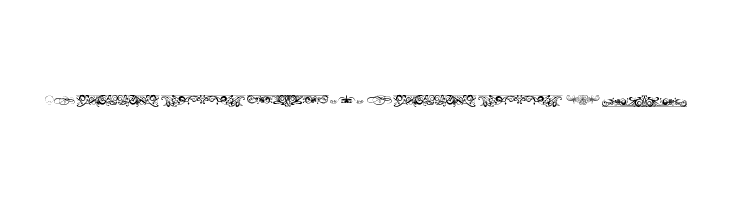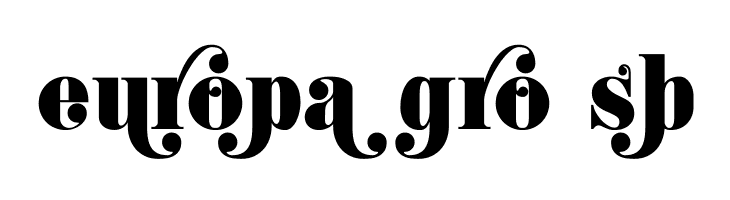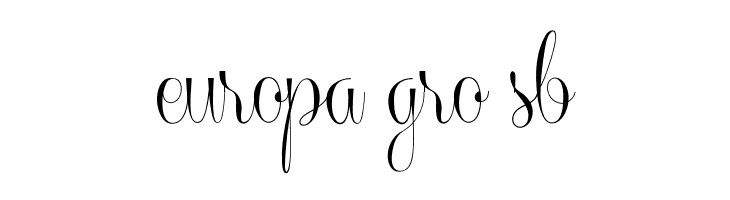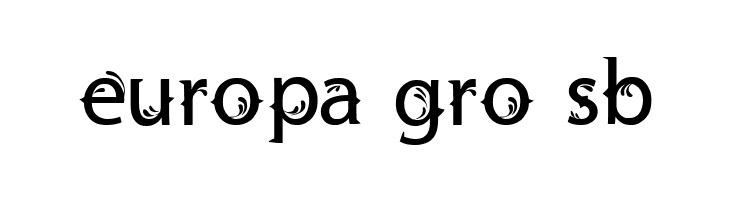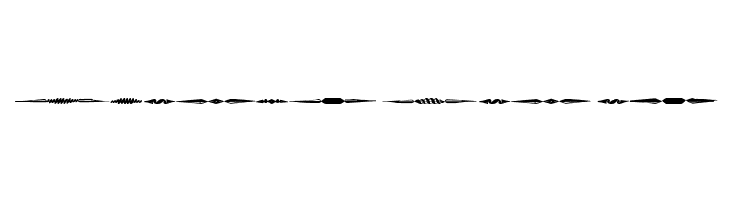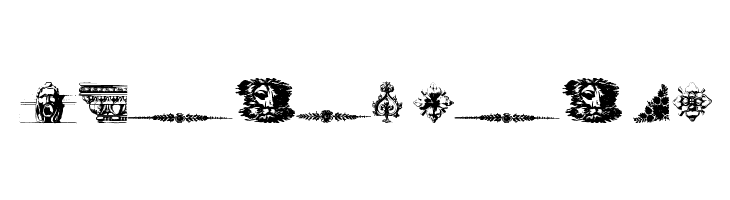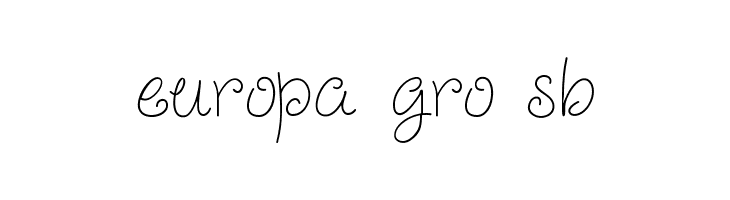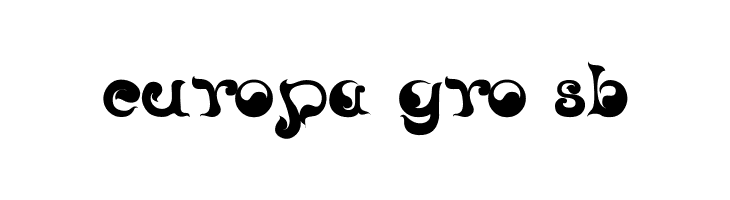
Ornate and vintage-inspired decorative frames and flourishes.
A whimsical and elegant calligraphic font with decorative flourishes.
A decorative font with intricate flourishes and artistic embellishments.
Ornate vintage ornament borders with intricate detailing.
A whimsical, curly font with a playful, hand-drawn style.
Whimsical dingbat font with frames, banners, swirls, and mustaches.